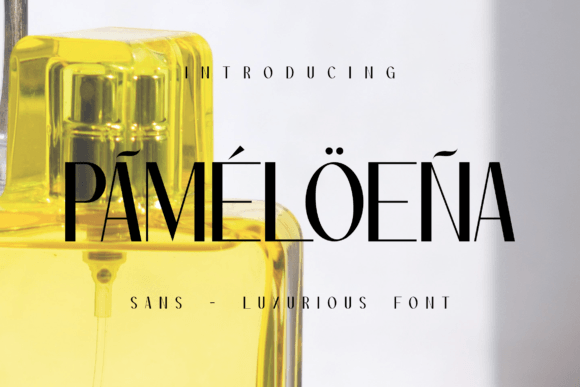
Introducing Pameloena Font, the stunning sans serif font that radiates elegance and sophistication. Crafted by the talented Wontenart, this font is a captivating blend of classic serif elements and a modern, bold structure, resulting in a typeface that commands attention and leaves a lasting impact.
Adorn your designs with the beauty of Pameloena Font, the perfect choice for a wide range of creative projects. Immerse yourself in the world of beauty, luxury, and nature as this font elevates your designs to new heights.
Picture this: a captivating banner ad that instantly draws the eye, enticing potential customers with its captivating design. Pameloena Font, with its bold and confident strokes, transforms ordinary text into an eye-catching spectacle. Its distinctive letterforms exude a sense of luxury and sophistication, making it the ideal choice for promoting high-end products and services.
Envision the allure of a mock-up lotion product packaging designed with Pameloena Font. The font's delicate curves and elegant lines complement the smooth, velvety texture of the lotion, creating a visual harmony that invites customers to indulge in the luxurious experience. With its ability to convey both beauty and quality, Pameloena Font elevates the perceived value of your products, leaving customers with a lasting impression of luxury and elegance.
Unlock the potential of sunscreen packaging with Pameloena Font. Its bold and confident strokes convey a sense of protection and reassurance, while its clean and legible letterforms ensure important information is clearly visible. Whether it's a bottle, a tube, or a spray bottle, Pameloena Font perfectly complements the protective nature of sunscreen products, making them stand out on store shelves and capture the attention of customers seeking sun protection.
Step into the world of fragrances and let Pameloena Font guide you on a captivating journey of luxury and sophistication. Its delicate strokes and elegant curves evoke the essence of nature's finest fragrances, inviting customers to indulge in a sensory experience like no other. From perfume bottles to scented candles, Pameloena Font adds a touch of elegance and refinement, enhancing the perceived value of your products and creating a lasting impression of luxury and indulgence.
Pameloena Font is more than just a font; it's an invitation to explore new creative horizons. Its versatility extends beyond the boundaries of beauty products, allowing designers to find unexpected applications. Whether it's creating captivating posters, brochures, or website designs, Pameloena Font empowers you to communicate your message with style and impact. Its ability to capture attention and convey a sense of luxury makes it the perfect choice for any design project seeking to leave a lasting impression.
With Pameloena Font, you possess the power to transform the ordinary into the extraordinary. Its ability to elevate designs to new heights makes it the perfect choice for designers seeking to capture attention, convey a sense of luxury, and leave a lasting impression. Embrace the beauty and sophistication of Pameloena Font and let your creativity soar.